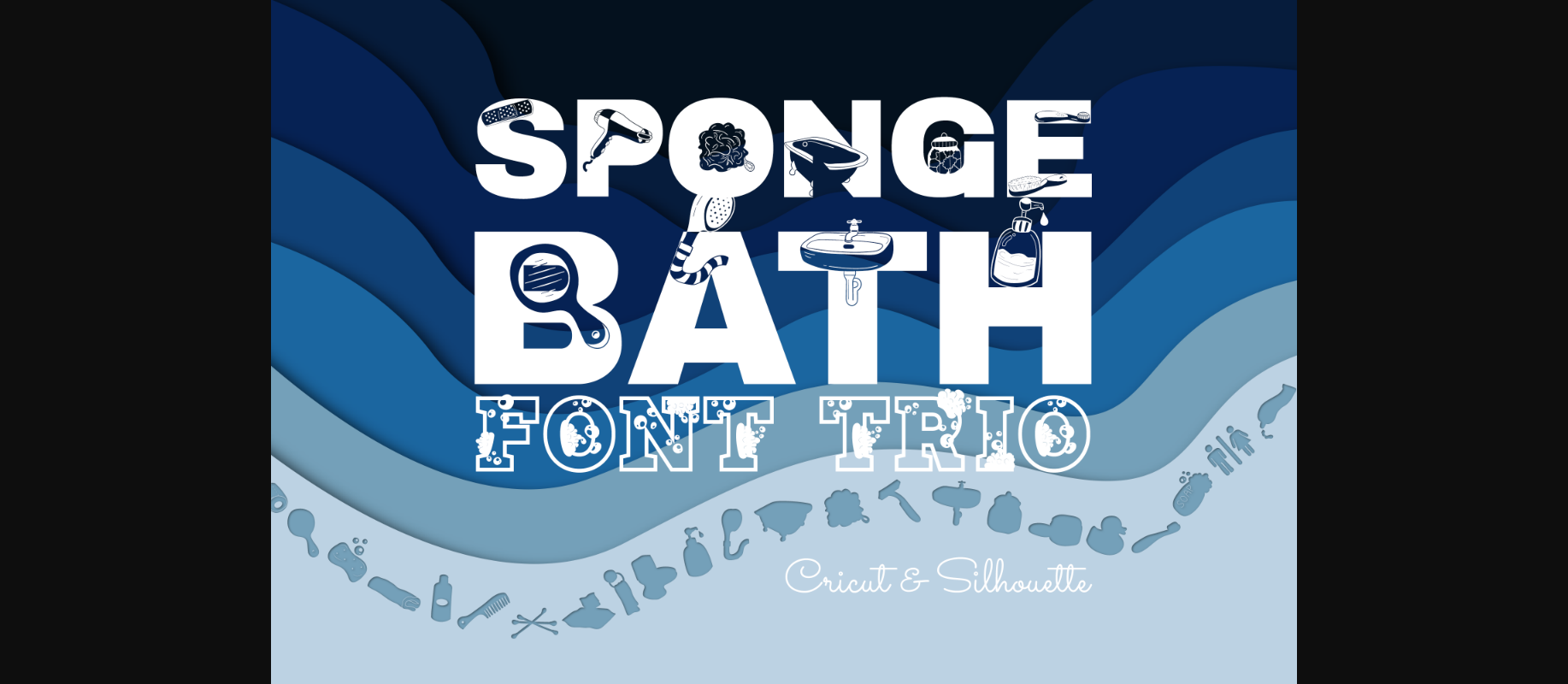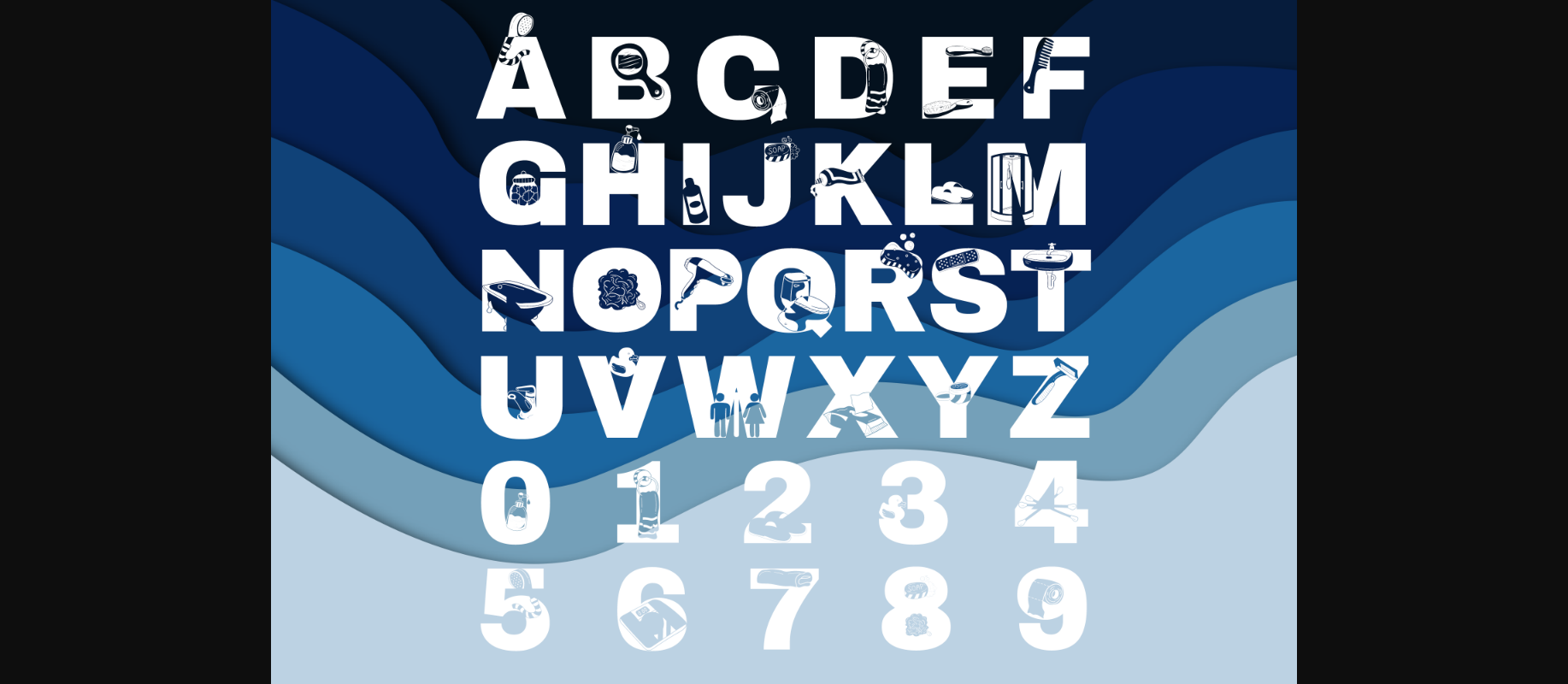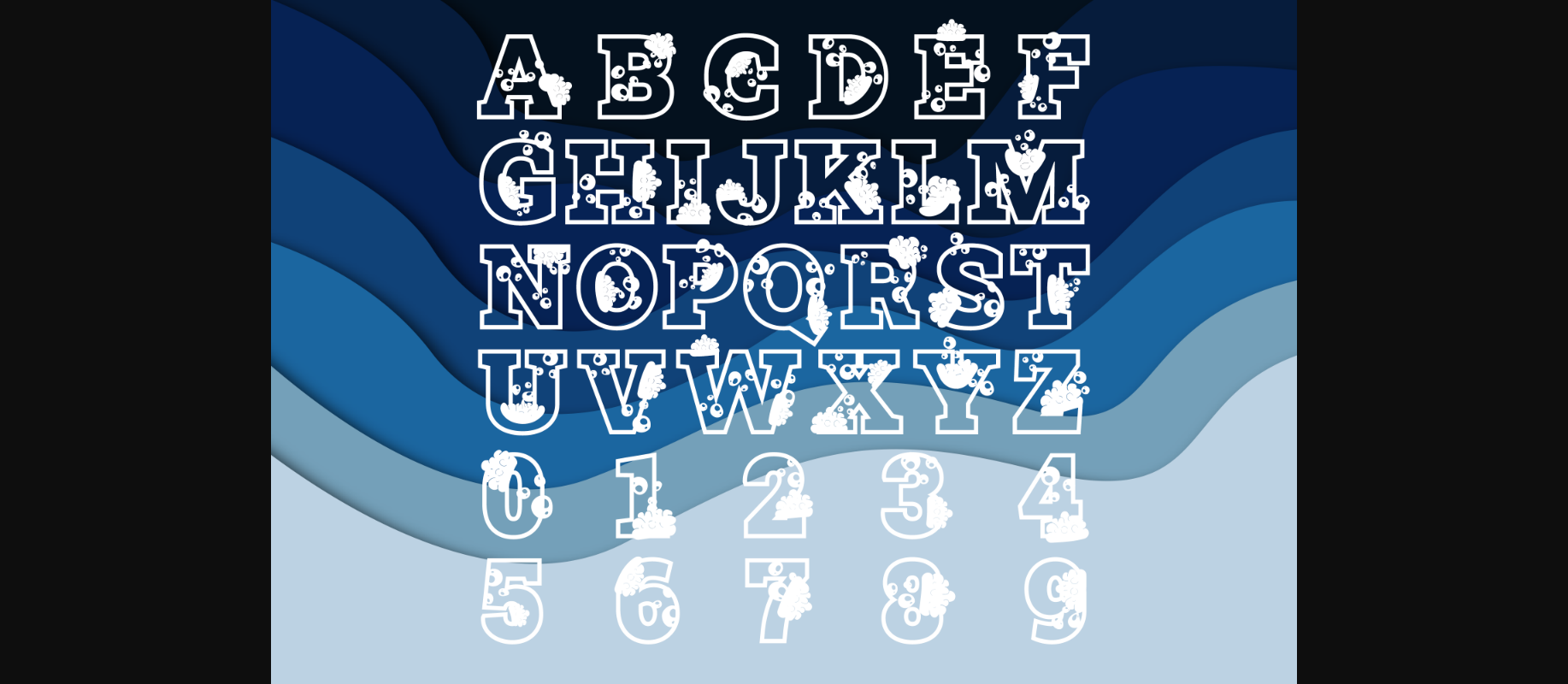
About Sponge Bath Font
Sponge bath is an incredibly cool duo font (decorative and dingbats). Whether you use it for cartoon-related designs, children’s games, or just any creation that requires a lovely touch, this font will be an amazing choice.